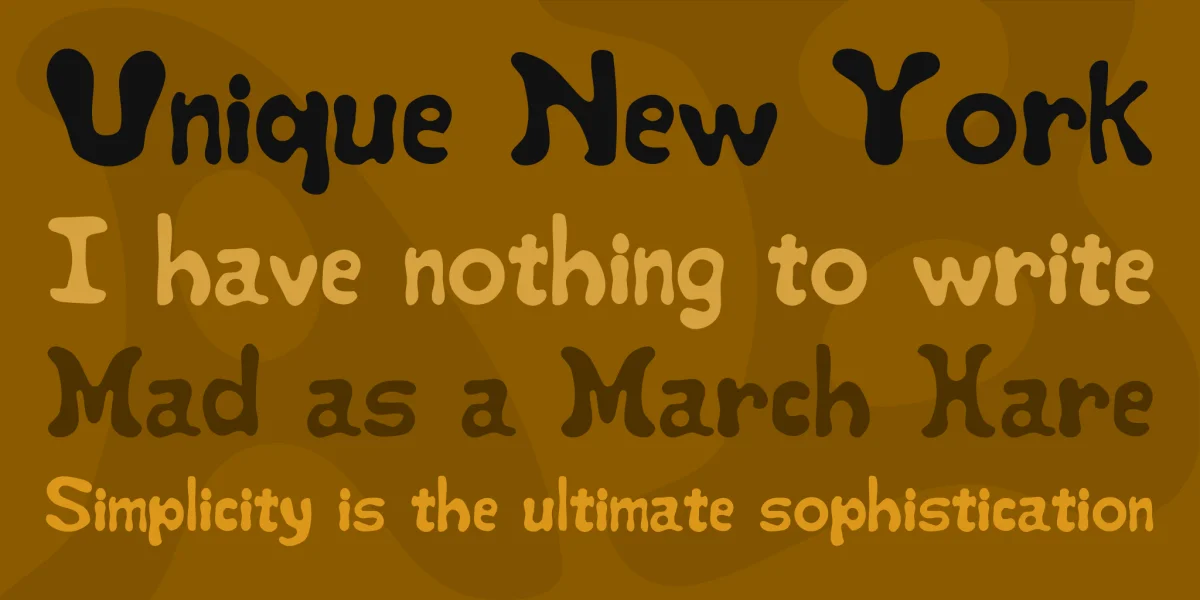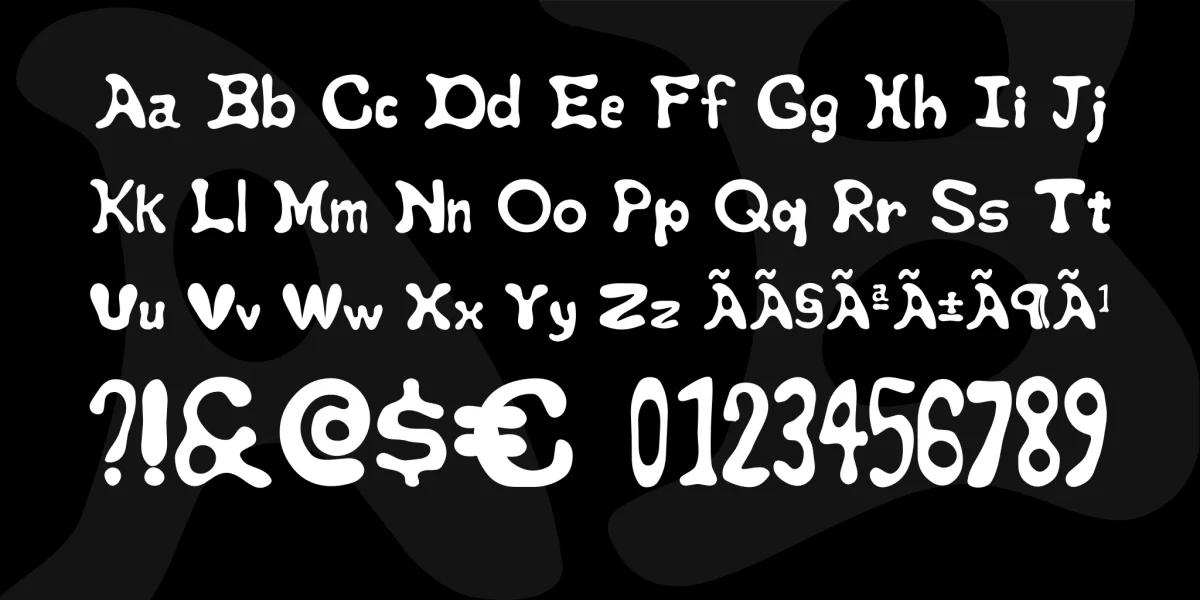
The Stay-Puft Marshmallow Font
Not a very impressive piece of work, but fun. I sat down to fiddle with pfaedit, and started seeing what I could do freehand, with minimal splines. The result was all rounded (not surprising), sort of marshmallowy, and I started thinking of it as the Stay-Puft Marshmallow Font (see Ghostbusters if you don't get it). Once I had a name, I felt compelled to round out the font (ISO 8859-1, at least). The outcome looks sort of like Comic Sans MS. It's kind of cute, and might be good for frivolous stuff such as birthday cards. I've used it on my National Academy of Silly Walks merchandise (http://www.cafepress.com/sillywalks/).
The font has ASCII, Latin-1, and a few other useful characters: left and right quotation marks (single and double), ellipsis, long dash, and Euro. I don't intend to round it out as much as I did with Isabella (http://www.thibault.org/fonts/isabella/); this is a much less interesting project. Anyone who wants to donate extra letterforms is welcome, of course.